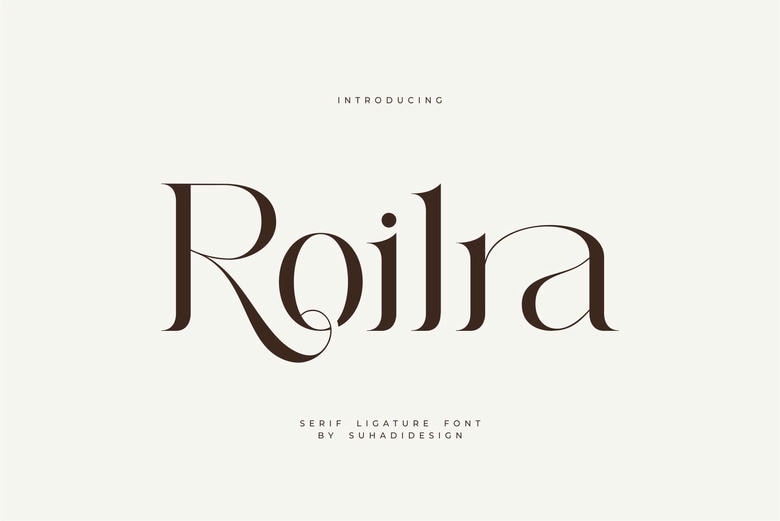
Roilra Font
The Roilra font is a complex serif typeface that is known for its beautiful ligature design and high-contrast lines that perfectly combine the modern refinement and timeless sophistication. Each letterform is carefully designed with flowing curves, slender lines, and stylish connections that make text look graceful and yet modern.
Perfectly versatile Roilra adapts beautifully to branding, editorial layouts, invitations and luxury packaging, providing a refined tone, which resonates with elegance and creativity. Its balance of readability and artistic flair make it a must-have for designers looking for a font that exudes style and uniqueness.
Roilra Serif Ligature Font